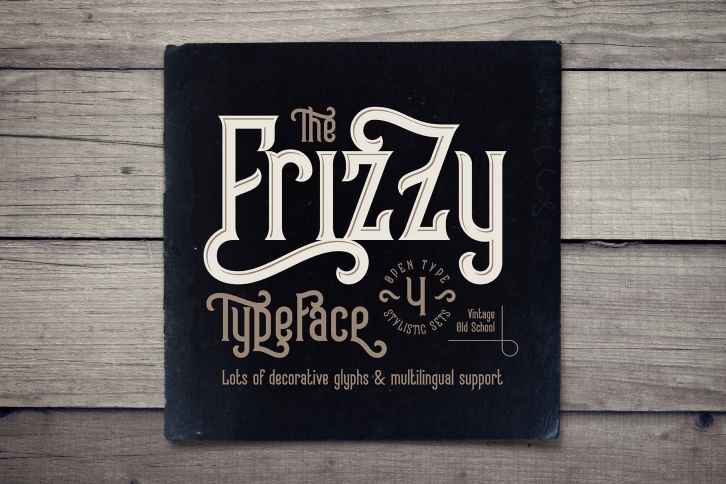
Frizzy vintage is a trendy and unique font with an authentic style. It was designed by Gleb Guralnyk and it's a great choice for creative people who need such a font. It was released on May 4, 2020 and the file size is 9.65 MB. Frizzy vintage will add an organic vibe to any design idea!